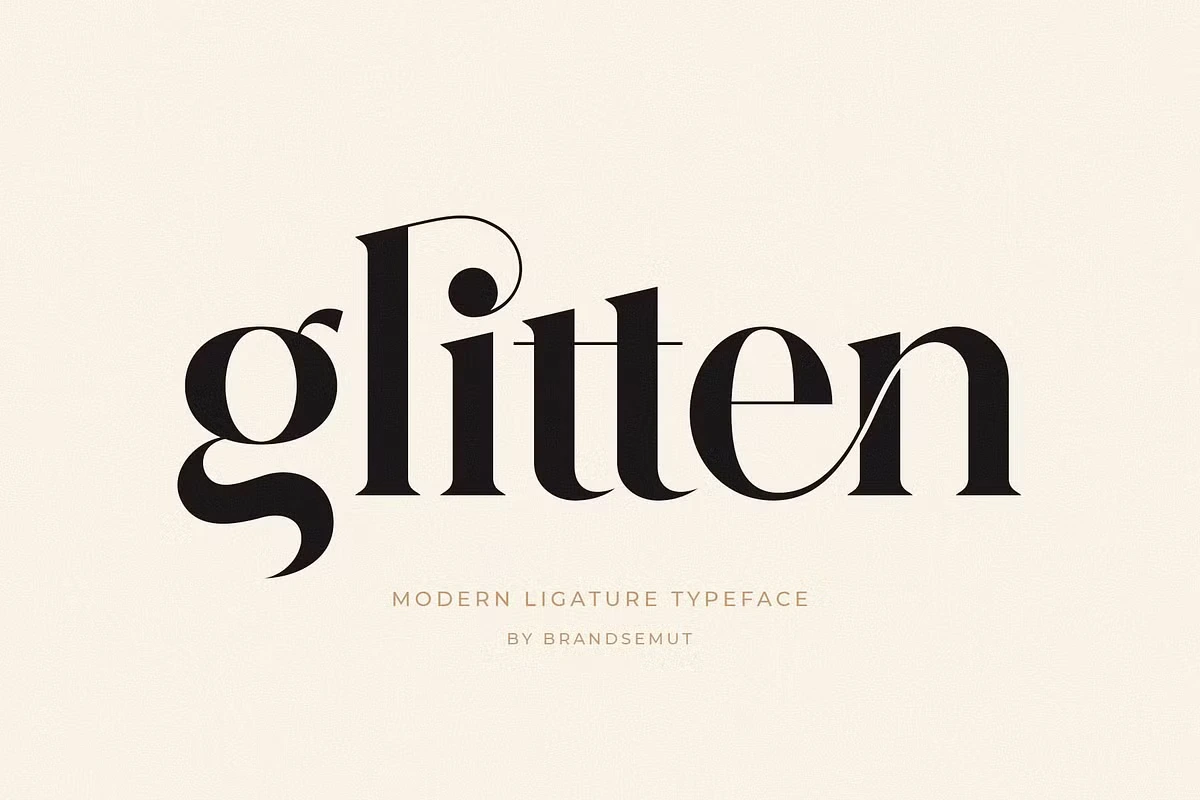
Glitten Font Ligature is a sophisticated and elegant serif typeface designed to bring a touch of luxury to any project. With its graceful curves and carefully crafted details, this font is perfect for logos, magazines, social media graphics, and various creative works. It comes pre-matched and ready to enhance your designs with a refined and stylish look.
Developed with advanced OpenType features, Glitten Font offers over 98 unique ligatures, alternative punctuation marks, and a full set of numbers. Its multilingual compatibility ensures seamless use across different languages, making it a versatile choice for designers worldwide. Whether you need a bold statement piece or a subtle touch of elegance, Glitten Font delivers timeless beauty and functionality.